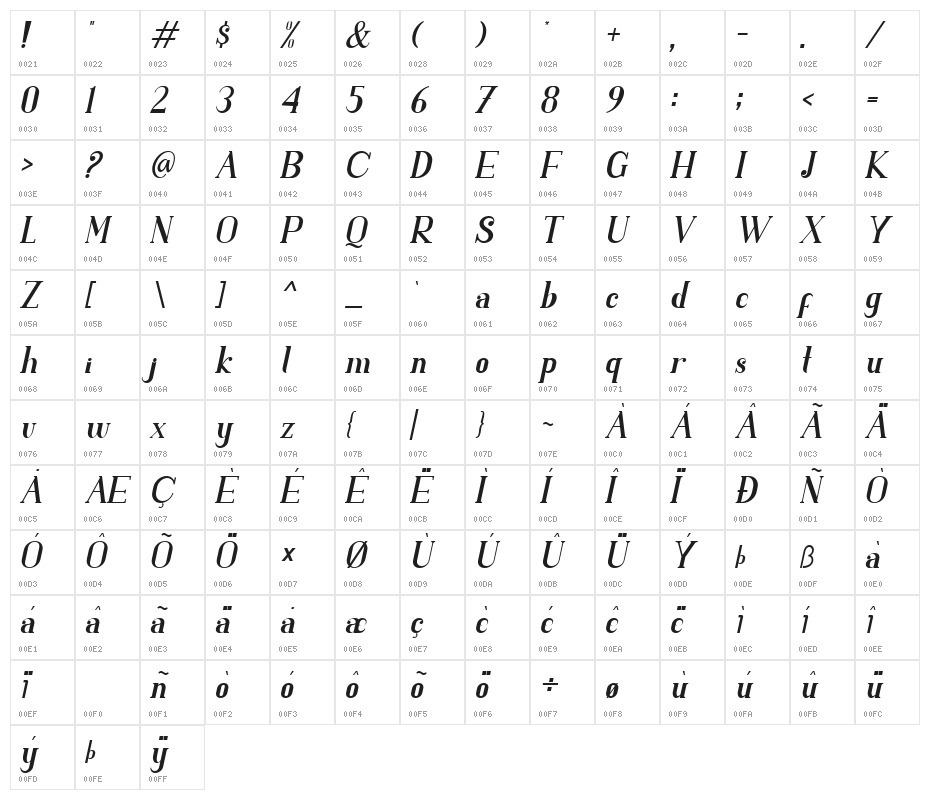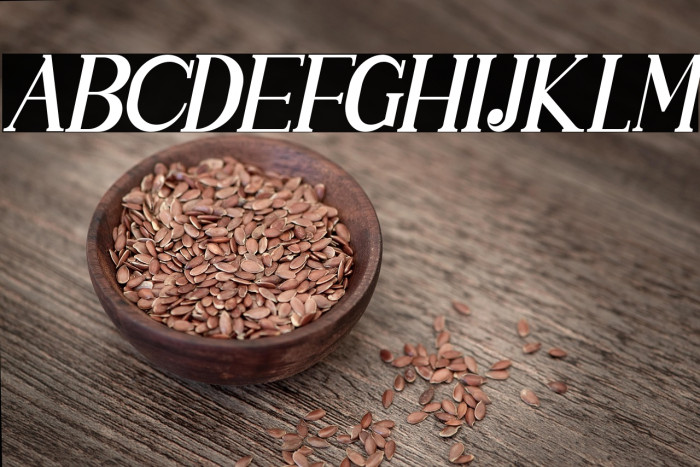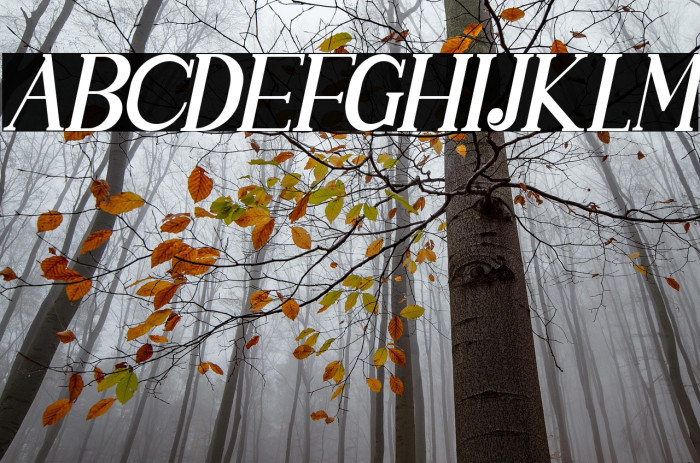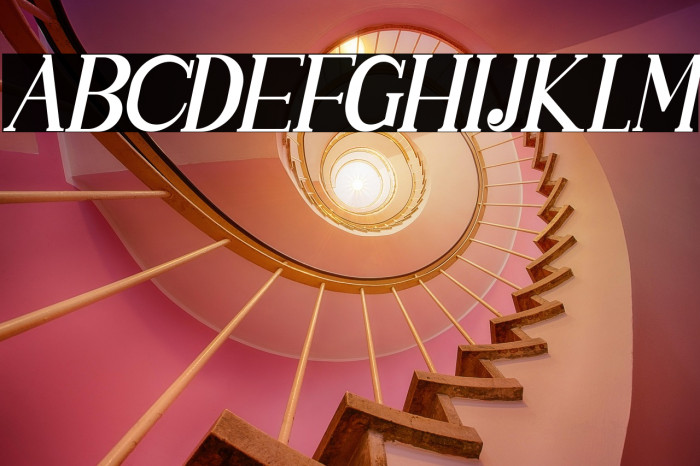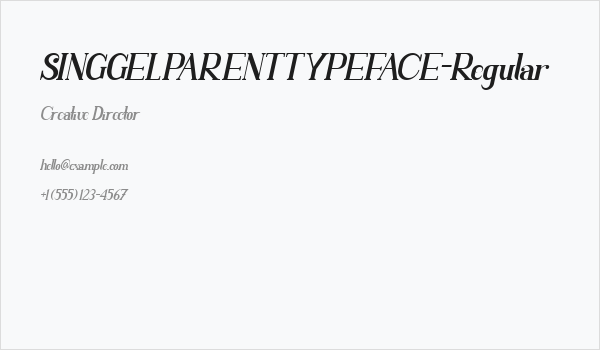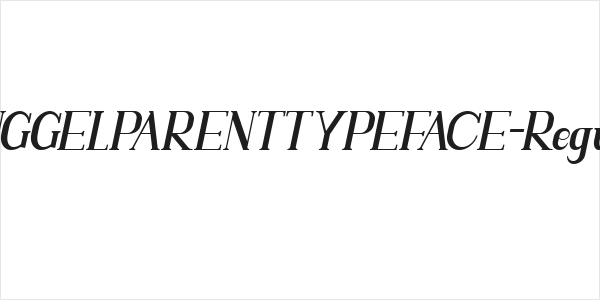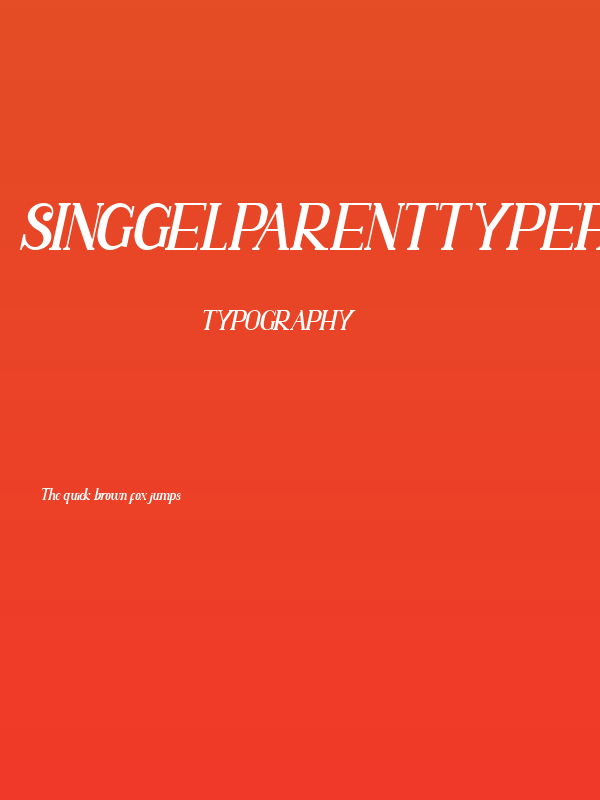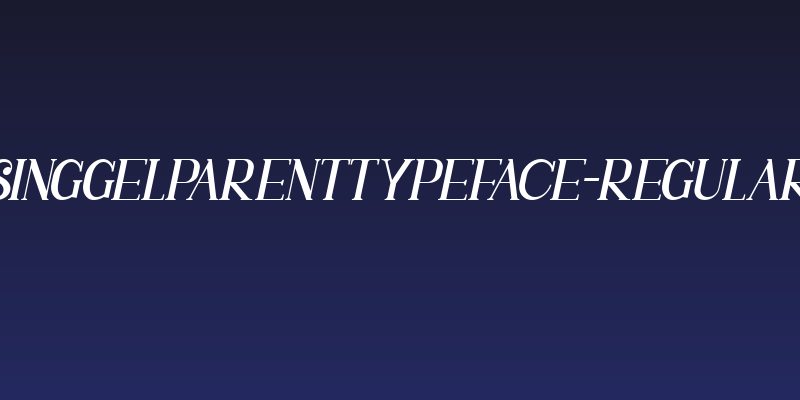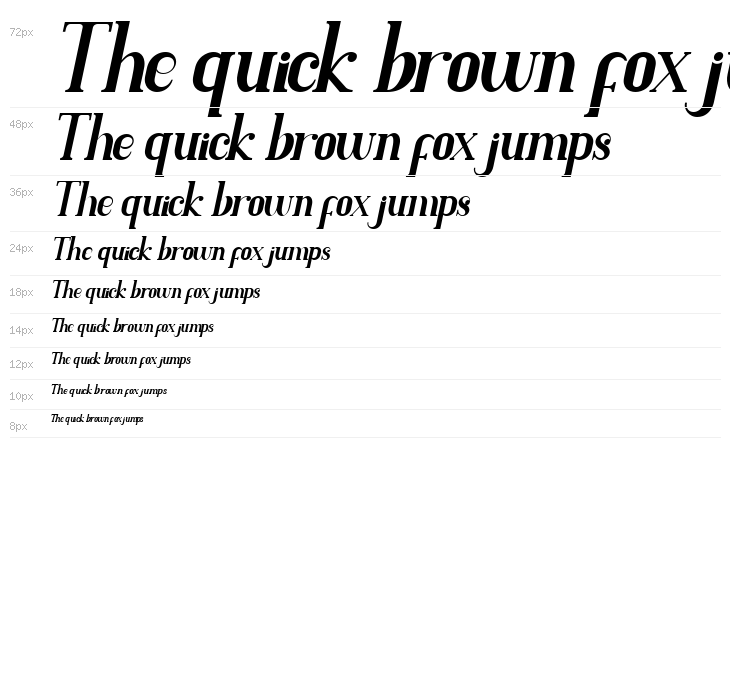
SINGGELPARENTTYPEFACE-Regular Font
SINGGELPARENTTYPEFACE-Regular Description
This typeface features a dynamic and elegant design with a strong emphasis on diagonal strokes, giving it a sense of motion and sophistication. The uppercase letters are tall and slender, while the lowercase letters maintain a consistent flow with slightly exaggerated curves. The numerals are bold and clear, ensuring readability. Special characters are designed with the same attention to detail, making them stand out without overpowering the overall aesthetic. This font is suitable for projects that require a touch of elegance and modernity.
| Use Case | Headlines, Logos, Editorials |
| Proposed Projects | Ideal for fashion magazines, luxury branding, elegant invitations, and modern editorial layouts. |